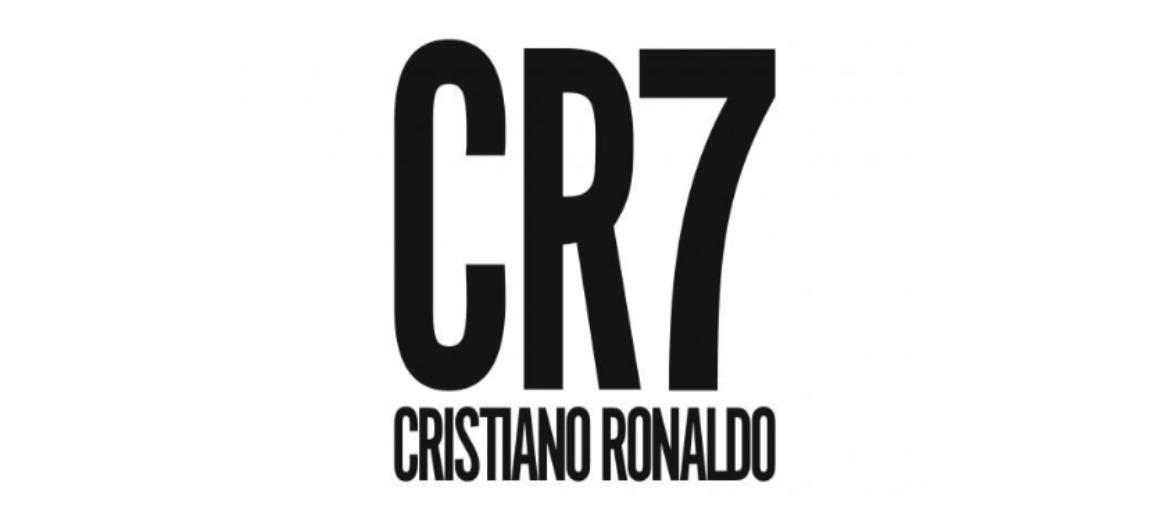
CR7 Font
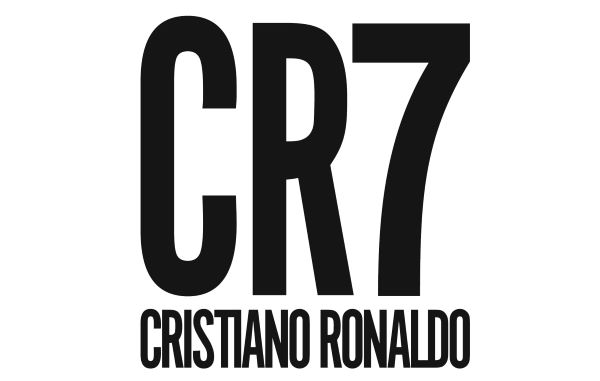
What Font is CR7?
The CR7 Font used in the branding of Cristiano Ronaldo’s signature mark is a custom-designed typeface tailored specifically to his initials and legendary number. The styling is very close to the bold, condensed sans-serif aesthetic of Alternate Gothic. For the number ”7” Industrial Gothic Pro Banner Regular is the close font. For designers looking to replicate this look without a premium license, a free alternative font is also available that captures the same strong, athletic, and instantly recognizable design.
About CR7
The brand “CR7” combines Cristiano Ronaldo’s initials “CR” with his iconic jersey number “7.” It has grown beyond sport into a global fashion and lifestyle imprint. The typographic treatment — bold, dynamic and streamlined — mirrors Ronaldo’s speed, precision and elite athletic identity. The logo and word-mark reflect focus and power, making “CR7” a symbol not just of a player, but of performance, ambition and style.